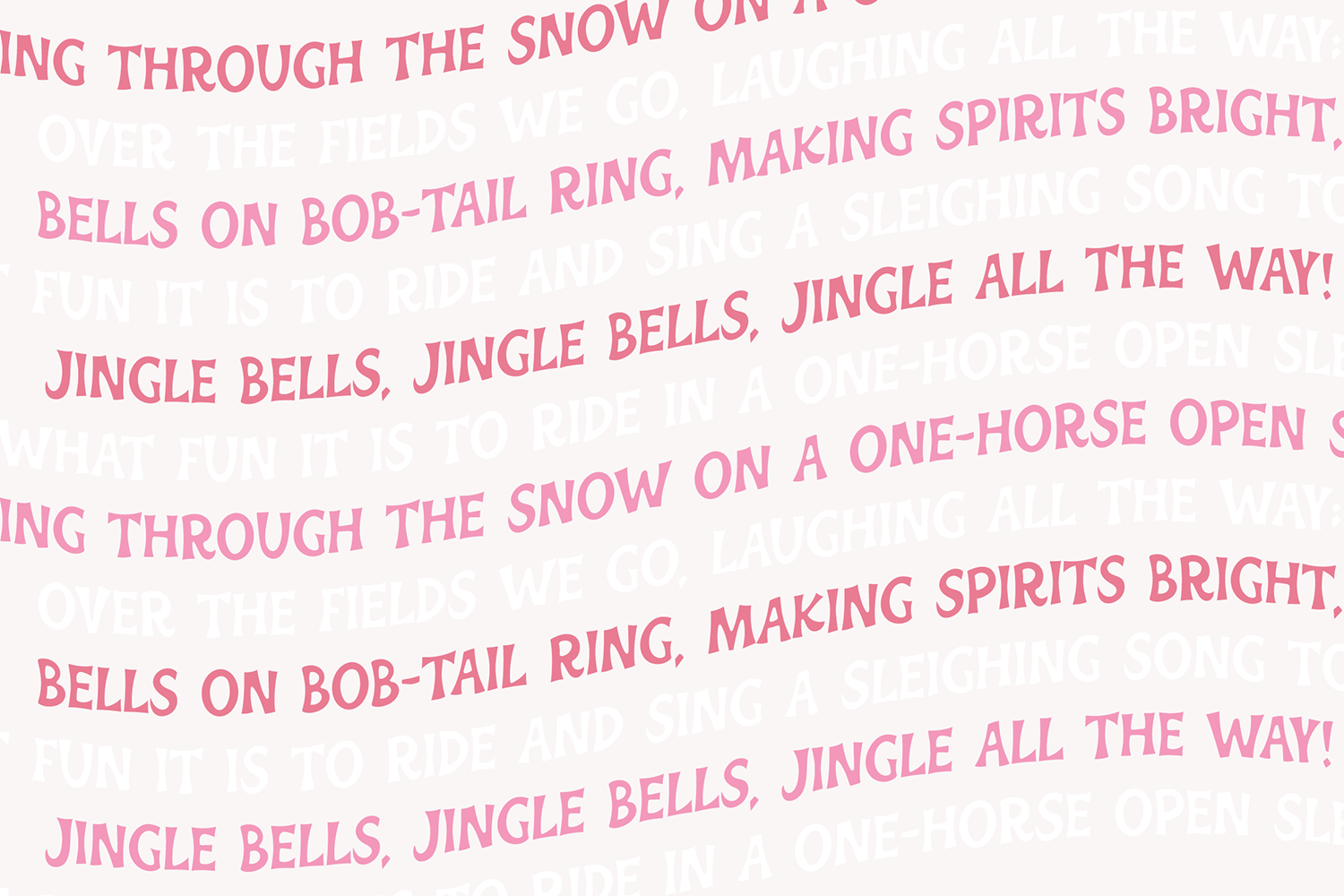
"Jolly Wonder" a Whimsical Retro Christmas font
Jolly Wonder is perfect for your holiday projects. Use it for Christmas cards, winter crafts for decor and more! This font includes numbers, basic punctuation and intl characters! Fond the stars by using the < > keys.